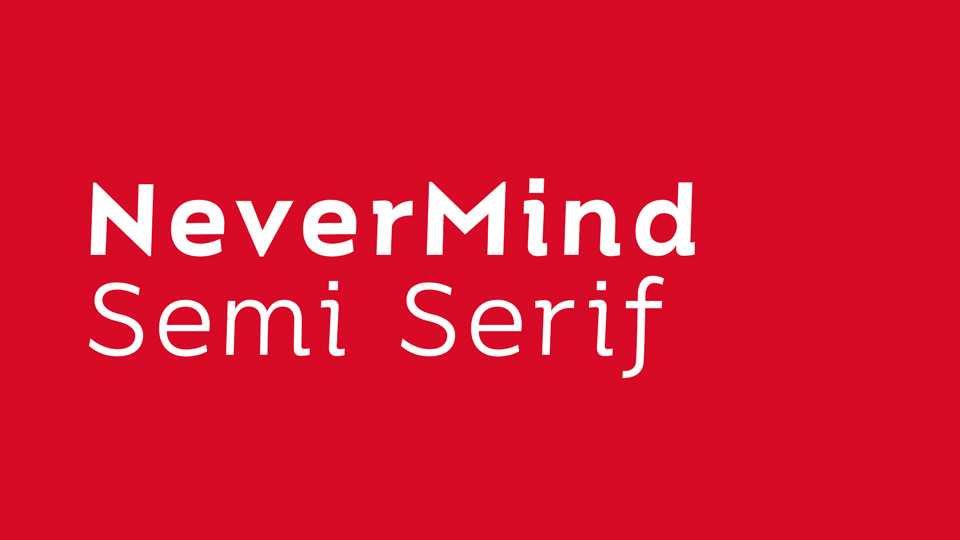
Download Nevermind Semi Serif font, a versatile serif typeface that seamlessly merges classic elegance with contemporary edge. Modern and friendly, it can be used for all types of communication.
Designer: XMind Ltd.